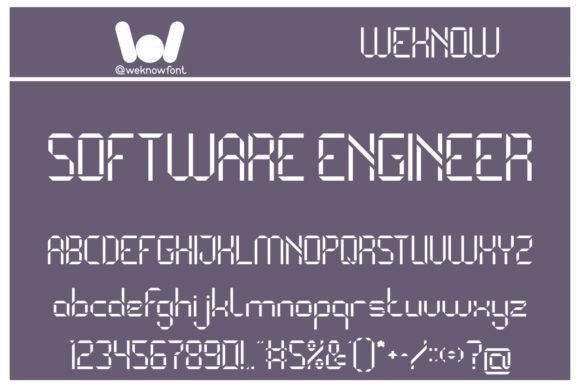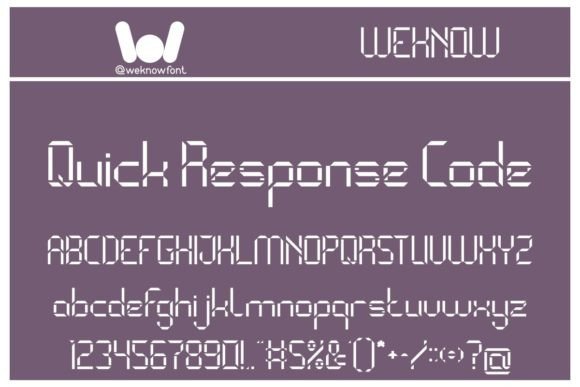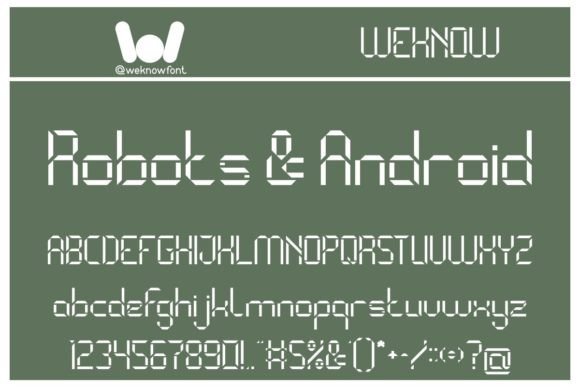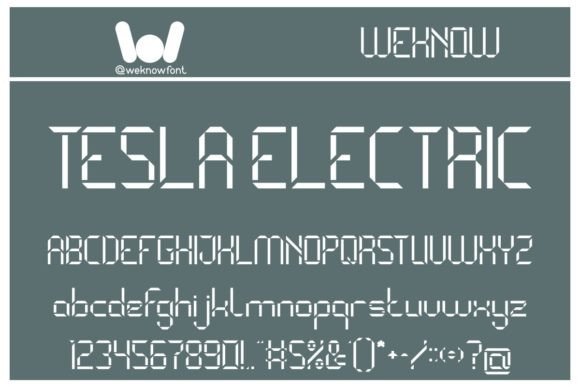
The Binary Code Font: A Sci-Fi Dream Come True for Designers
I still remember the project like it was yesterday. I was working on a futuristic branding campaign for a tech startup, and I was determined to find the perfect font to capture their innovative spirit. As I scrolled through font after font, nothing seemed quite right – until I stumbled upon Binary Code. ✨ This sci-fi led display font was love at first sight, and I knew I had to share it with the world.
What I Love About Binary Code
• ✅ Unique and eye-catching design: Binary Code is not your average font. Its futuristic, tech-inspired aesthetic makes it perfect for projects that require a bit of edge.
• ✅ Versatile: Whether you’re designing a logo, a poster, or a social media graphic, Binary Code adapts seamlessly to different contexts.
• ✅ Easy to read: Despite its futuristic vibe, Binary Code remains surprisingly legible, even at smaller sizes.
While Binary Code is an amazing font, it’s not without its quirks. 🤔 For example:
• ⚠️ Limited use in body text: Due to its display nature, Binary Code might not be the best choice for lengthy paragraphs. It’s best used for headlines, titles, or short phrases.
• ⚠️ Glyph compatibility: Some glyphs or special characters might not work as expected in certain software or platforms. Always test your design before finalizing.
The Story Behind Binary Code: Designer Inspiration
While the true origins of Binary Code remain a mystery, it’s easy to imagine a designer fueled by sci-fi novels and late-night coding sessions. Perhaps they wanted to create a font that embodied the fusion of technology and art, resulting in a typeface that’s both functional and visually striking.
Q: What is Binary Code font best used for?
A: Binary Code excels in display settings, such as logos, headlines, posters, and social media graphics. Its unique design makes it perfect for projects requiring a futuristic or tech-inspired aesthetic.
Q: Is Binary Code suitable for body text?
A: While Binary Code is legible, its display nature makes it less ideal for lengthy paragraphs. For body text, consider using a more traditional font with better readability.
Q: Does Binary Code support OpenType features?
A: Yes, Binary Code supports OpenType features, including ligatures, stylistic alternates, and glyphs. Experiment with these features to add more depth and character to your designs.